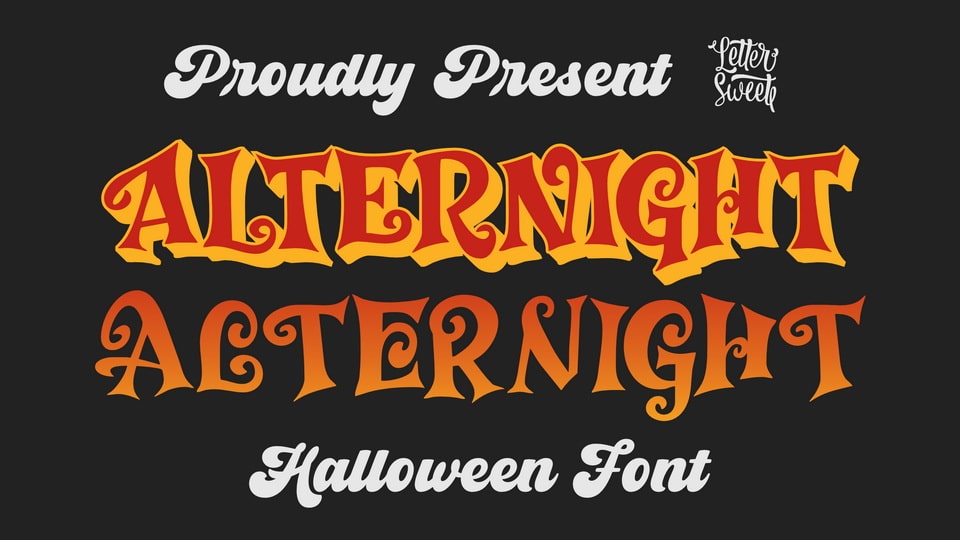
Download Alternight font, a bold Halloween display typeface with classic horror-poster vibes—thick serifs, swirling curls, and sharp silhouettes that make the word.